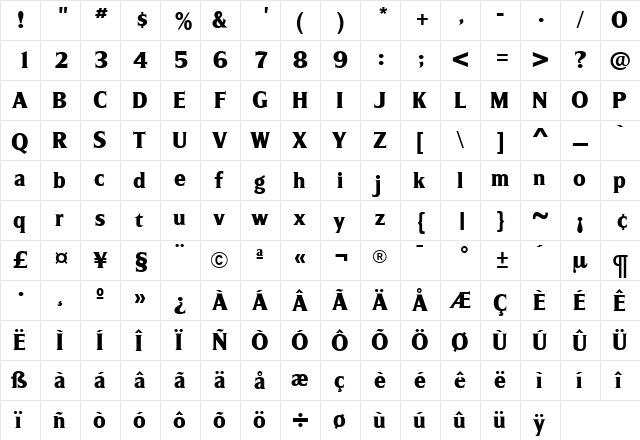
SilveradoExtraBold Roman
Design Context for SilveradoExtraBold Typeface
SilveradoExtraBold offers clean, dependable letterforms without strong stylistic allegiance, making it a practical choice for designers who need flexibility. Its bold stroke weight gives it real presence on the page.